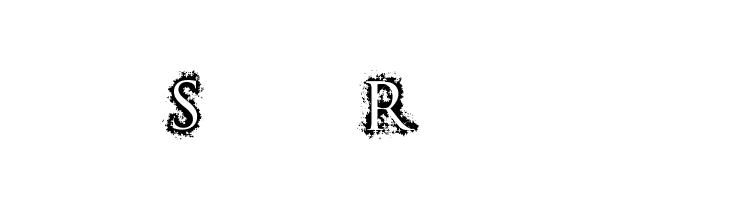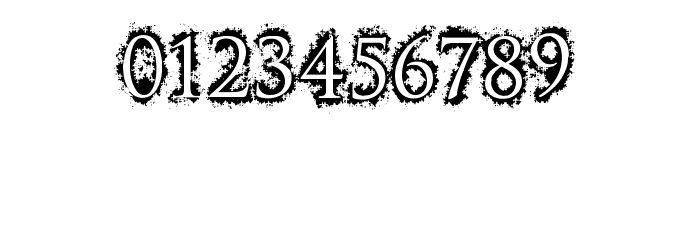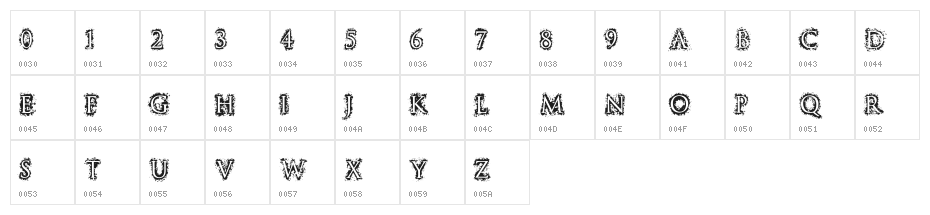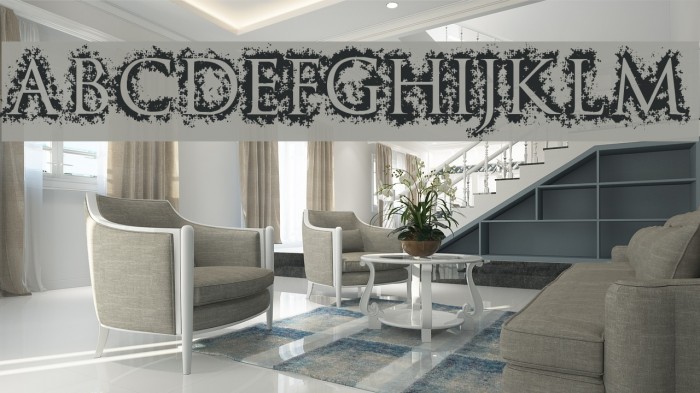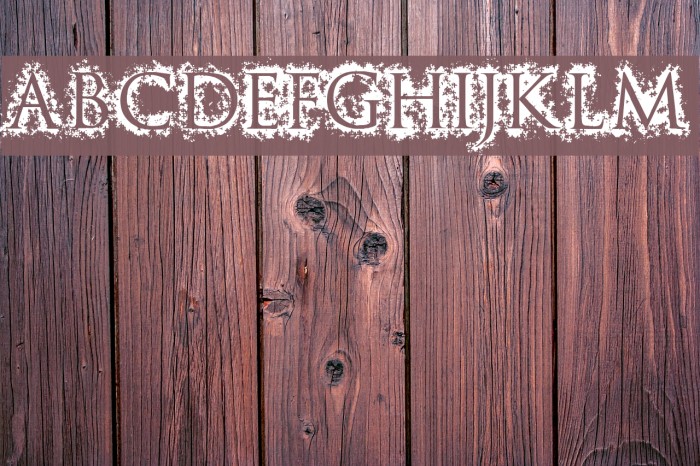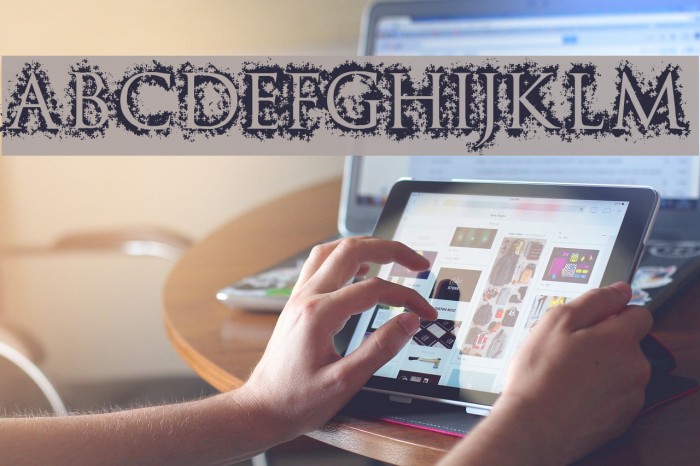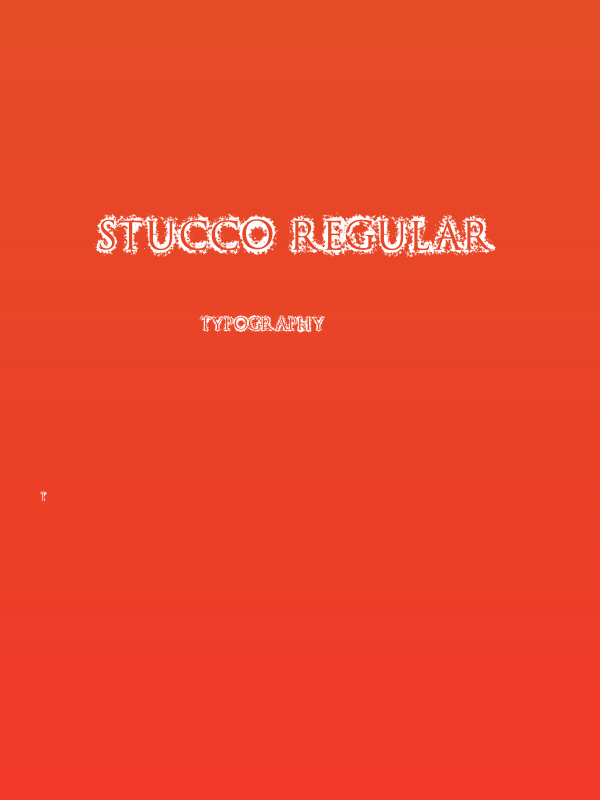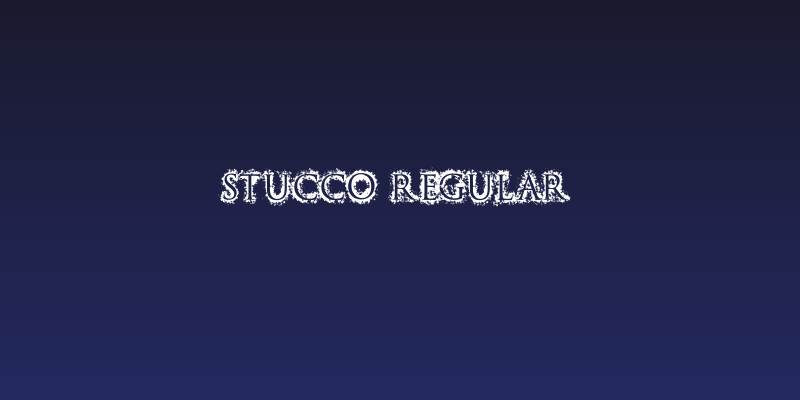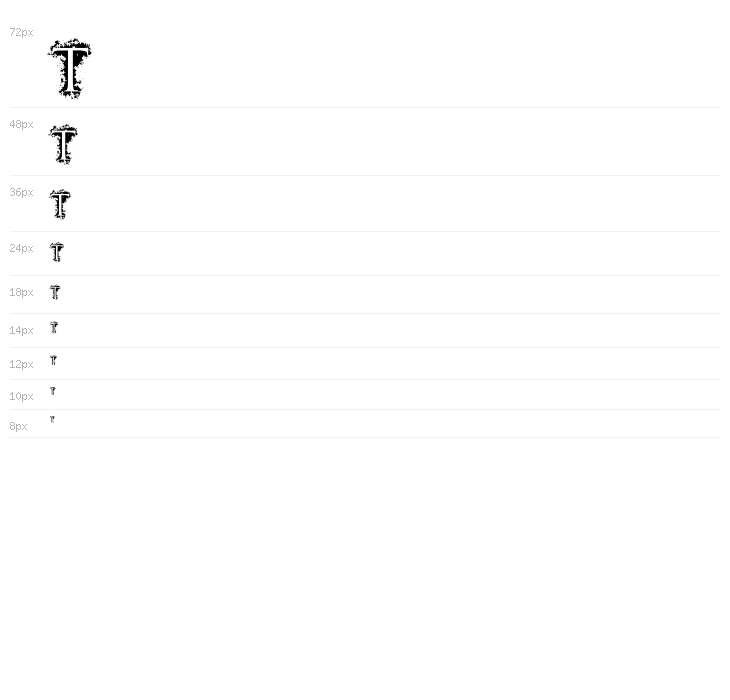
Stucco Regular Font
Stucco Regular Description
This font features a textured, distressed appearance that gives it a unique and artistic flair. The letters are bold and have a rough, uneven edge, reminiscent of a weathered or eroded surface. This style adds a vintage and rustic charm, making it stand out in any design. The uppercase letters are prominent, and the numbers follow the same textured pattern, ensuring consistency across all characters. Its distinctive look is perfect for projects that require a touch of creativity and individuality.
| Proposed Projects | Ideal for posters, album covers, branding, and any design needing a rustic, artistic touch. |